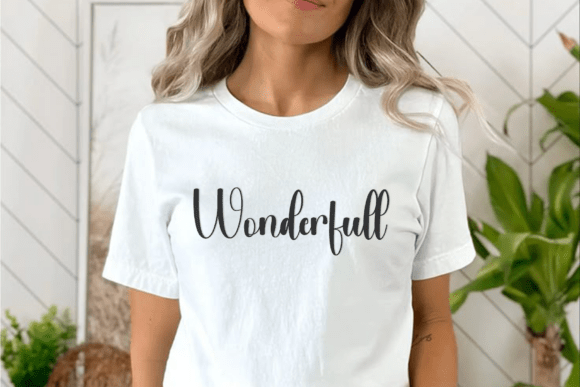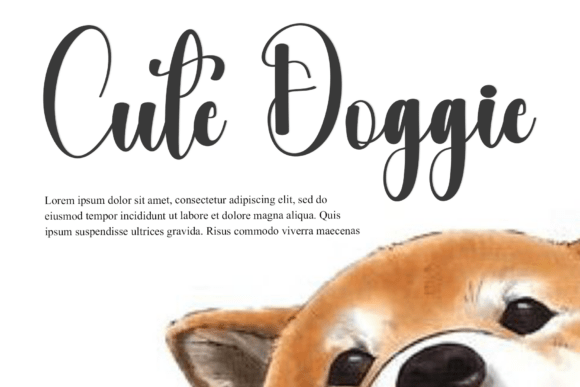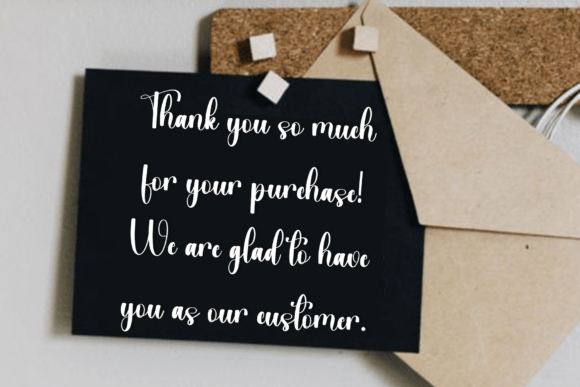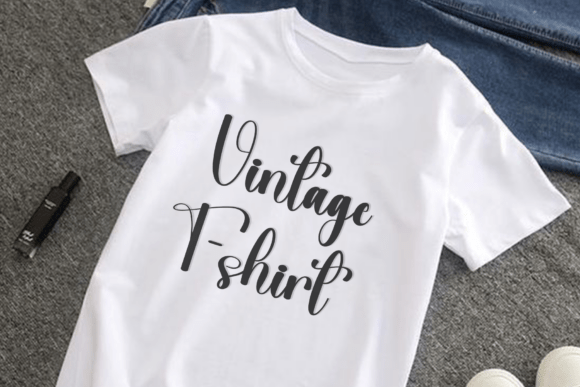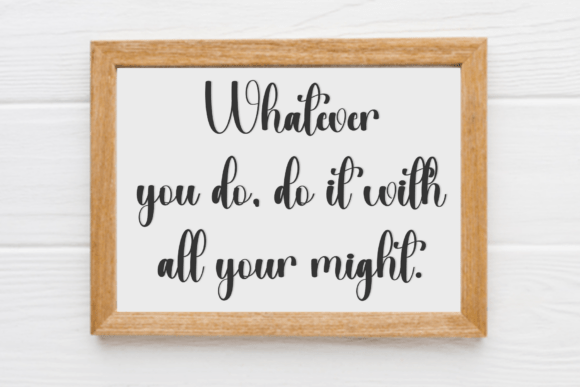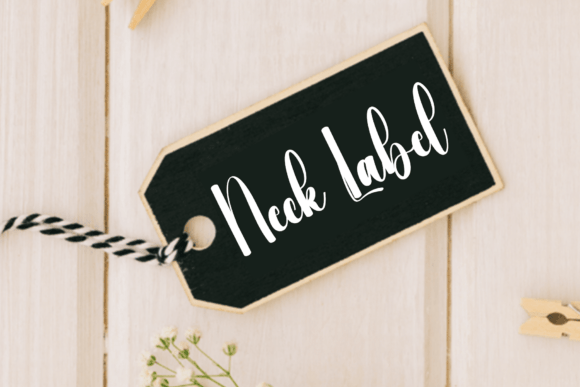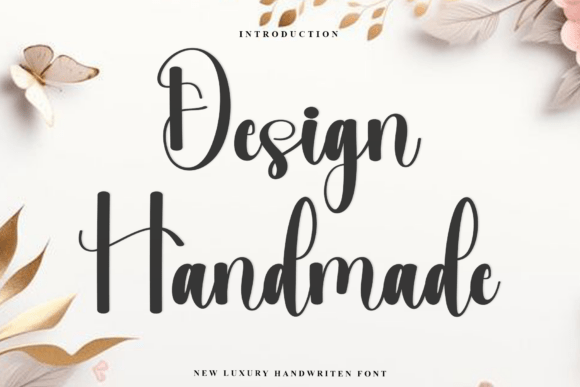
Introducing Design Handmade Font: The Perfect Blend of Casual and Creative
Are you tired of using generic, overused fonts in your designs? Look no further than Design Handmade Font, a charming and creative typeface that adds a personal touch to any project. With its round, playful strokes and hand-drawn aesthetic, this font exudes warmth and friendliness, making it perfect for personal projects, invitations, and social media graphics.
The Characteristics of Design Handmade Font
Design Handmade Font is a casual and creative font that boasts a unique, hand-drawn look. Its round, playful strokes create a relaxed and approachable feel, making it ideal for designs that require a personal touch. The font’s charming aesthetic adds a fun and unique touch to any design, setting it apart from more traditional typefaces.
What Makes Design Handmade Font So Versatile?
One of the key features of Design Handmade Font is its versatility. This font is equipped with standard PUA Encoded glyphs, which are designed to work seamlessly with various application engines, including Adobe Photoshop, Corel, Adobe Illustrator, Canva, and many others. This means that you can use Design Handmade Font in a wide range of design projects, from digital graphics to print materials.
Perfect for Personal Projects and Small Businesses
Design Handmade Font is perfect for designers and crafters who want to add a personal touch to their projects. Whether you’re creating invitations, social media graphics, or branding materials for a small business, this font is sure to make your designs stand out. Its casual and creative vibe makes it ideal for projects that require a friendly and approachable feel.
Benefits of Using Design Handmade Font
- Unique and eye-catching: Design Handmade Font adds a fun and unique touch to any design, making it perfect for projects that require a personal touch.
- Versatile: This font is equipped with standard PUA Encoded glyphs, making it compatible with a wide range of application engines.
- Supports multiple languages: This font supports multiple languages, making it perfect for designers who work with clients from around the world.
Tips for Getting the Most Out of Design Handmade Font
- Experiment with different sizes and colors: Design Handmade Font looks great in a variety of sizes and colors, so don’t be afraid to experiment and find the perfect combination for your design.
- Pair it with other fonts: Design Handmade Font pairs well with other fonts, so try combining it with a bold font for headings or a clean font for body text.
- Use it for display text: Design Handmade Font is perfect for display text, such as titles, headings, and captions.
Design Handmade Font is a unique and versatile typeface that adds a personal touch to any design. With its charming, hand-drawn aesthetic and standard PUA Encoded glyphs, this font is perfect for designers and crafters who want to create unique and eye-catching designs. Whether you’re working on a personal project or a small business, Design Handmade Font is sure to make your designs stand out.